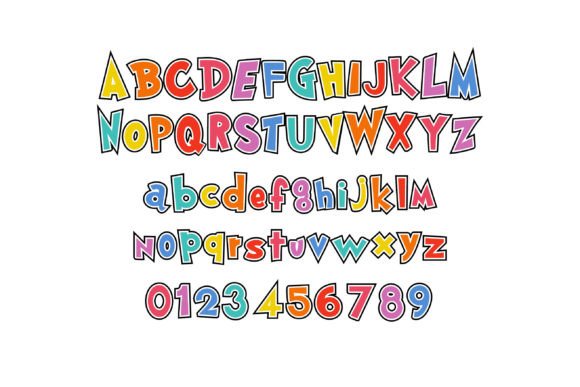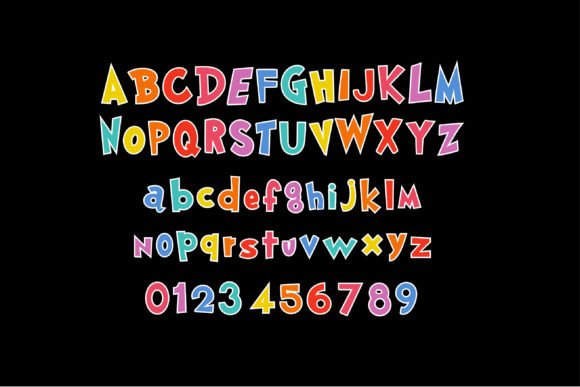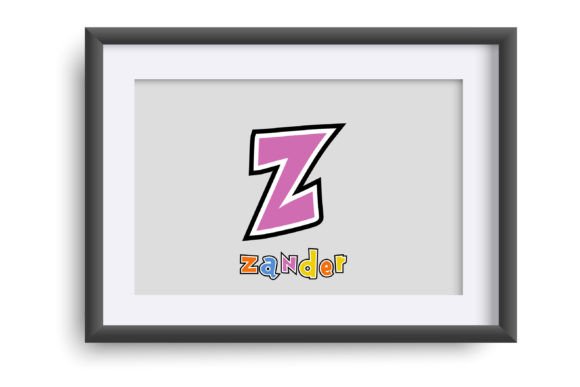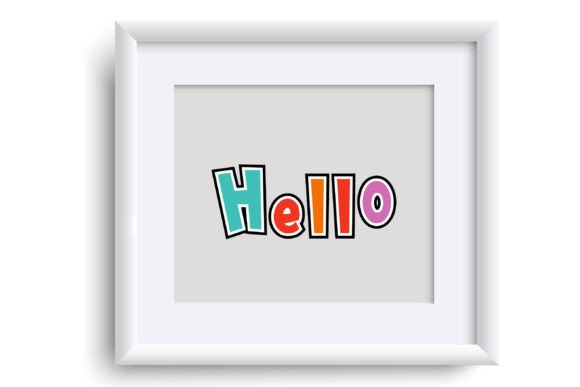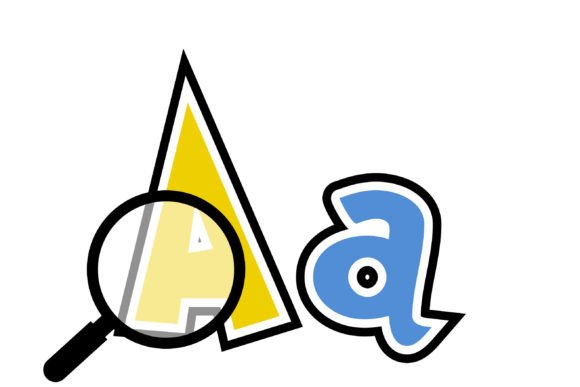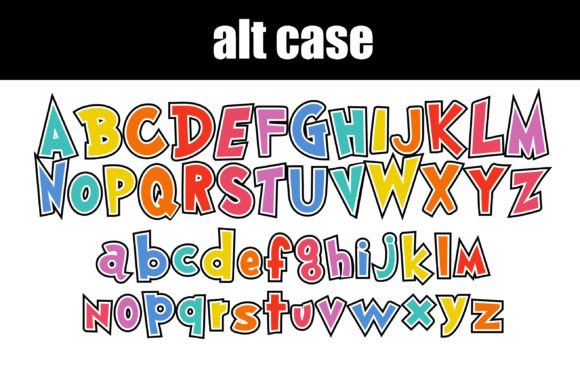
Introducing Going Full Color Font: Add a Pop of Personality to Your Designs
Are you tired of using the same old boring fonts in your design projects? Look no further than Going Full Color Font, a quirky and colorful font that’s sure to make a statement. This bold, bright, and eye-catching font is perfect for adding a bit of pizzazz to any design project, and its unique color palette and playful aesthetic are sure to capture the attention of your audience.
What Makes Going Full Color Font So Special?
Going Full Color Font is a one-of-a-kind font that’s full of personality and life. Each letter boasts a unique color palette, making it a true showstopper. The font’s playful and fun aesthetic is perfect for designers and crafters who want to add a bit of whimsy to their projects. Whether you’re working on a branding project, a marketing campaign, or a personal craft project, Going Full Color Font is sure to bring a smile to your face and a touch of personality to your design.
Going Full Color Font is perfect for designers and crafters who want to add a bit of personality to their projects. Whether you’re working on a commercial project or a personal craft project, this font is sure to bring a touch of fun and whimsy to your design. Designers will love the font’s bold and eye-catching aesthetic, while crafters will appreciate the font’s playful and creative vibe.
Use Going Full Color Font in a Variety of Projects
Going Full Color Font is versatile and can be used in a variety of projects, including:
- Branding and marketing materials, such as logos, business cards, and brochures
- Personal craft projects, such as scrapbooking and card making
- Web design and development projects
- Print-on-demand products, such as t-shirts and mugs
Tips for Using Going Full Color Font
Here are a few tips for getting the most out of Going Full Color Font:
- Use it as a headline font to add a pop of personality to your design
- Pair it with a neutral font to create visual interest and contrast
- Experiment with different color palettes and combinations to find the perfect look for your project
- Don’t be afraid to get creative and try new things – Going Full Color Font is all about having fun and adding a bit of whimsy to your design!
Going Full Color Font is a unique and playful font that’s sure to add a bit of personality to any design project. With its bold and eye-catching aesthetic, unique color palette, and PUA encoding, this font is perfect for designers and crafters who want to make a statement. So why settle for boring, ordinary fonts when you can go full color and add a pop of personality to your designs? Try Going Full Color Font today and see the difference it can make!